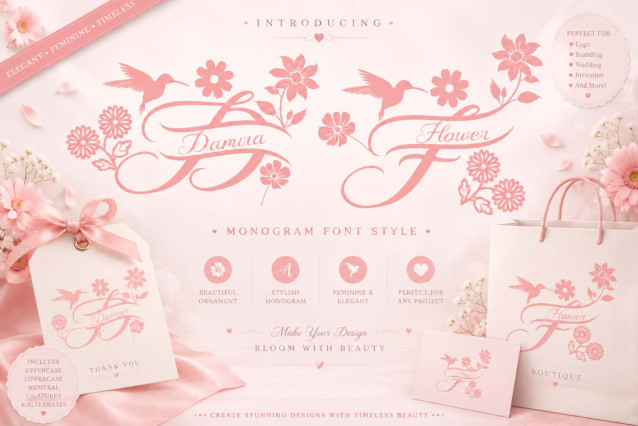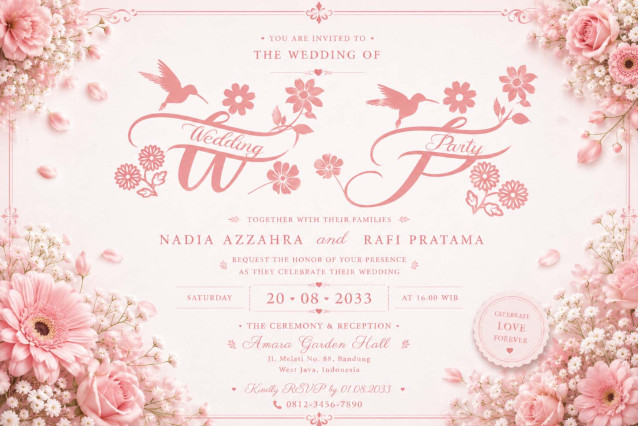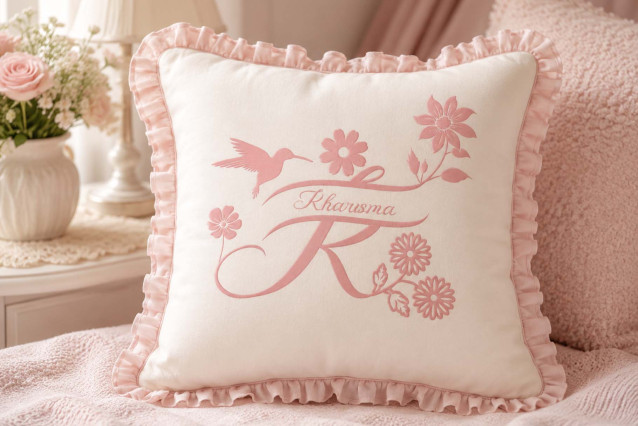
Damira Flower Monogram Font
“Damira Flower Monogram” is a beautiful and unique monogram font, decorated with birds and beautiful blooming flowers. It comes in two styles: regular and italic. It features monograms, uppercase and lowercase letters, ligatures, numbers, punctuation, and multilingual support. It’s perfect for spring, summer, weddings, invitations, business branding, stickers, t-shirts, mugs, and more.